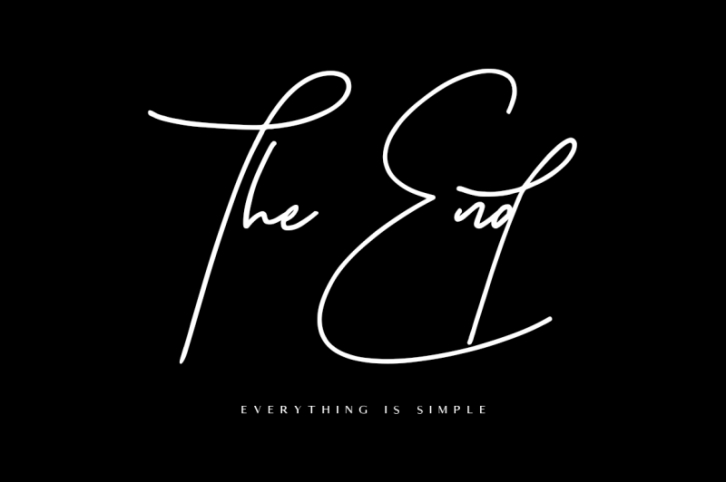
Rottles Signature Font Download
Give your designs an authentic handcrafted feel. "Rottles Signature Font" is perfectly suited to signature, stationery, logo, typography quotes, magazine or book cover, website header, clothing, branding, packaging design and more. Included Stylistic Alternates & Ligatures.